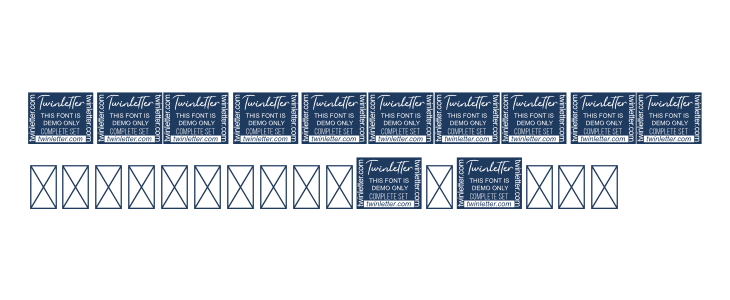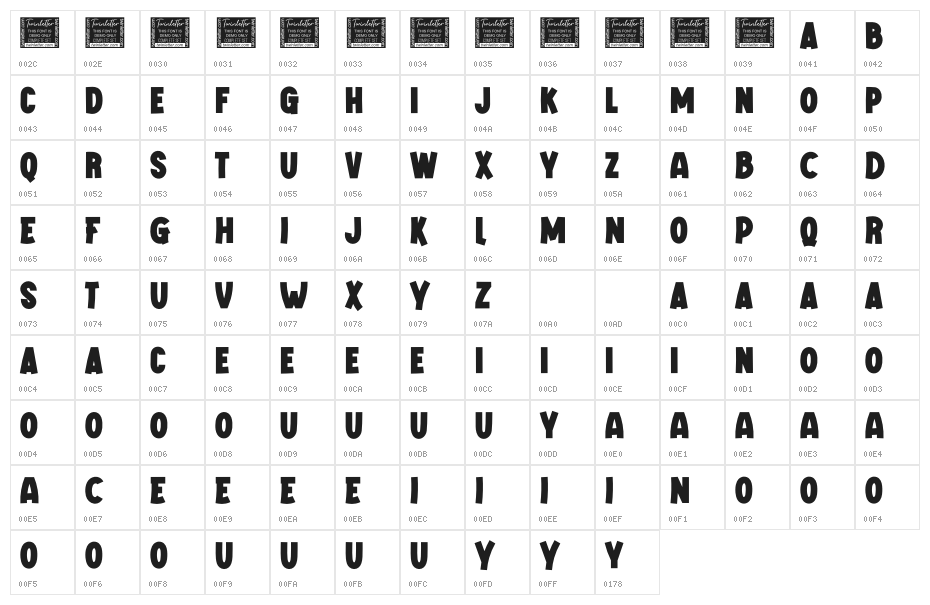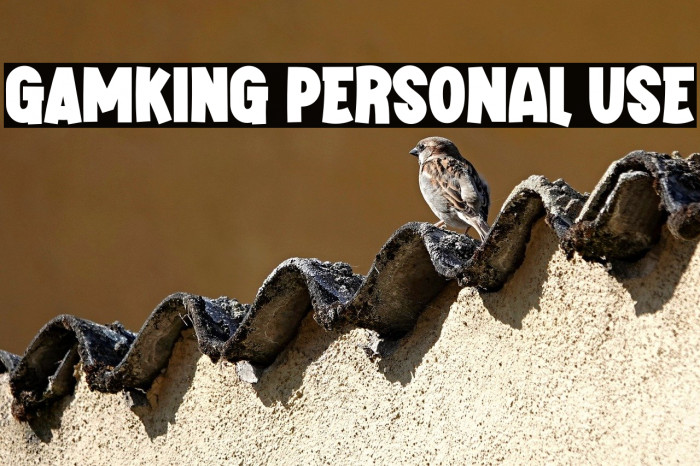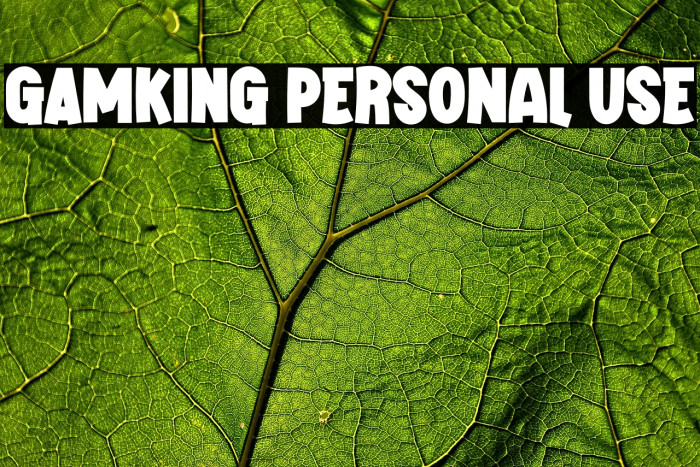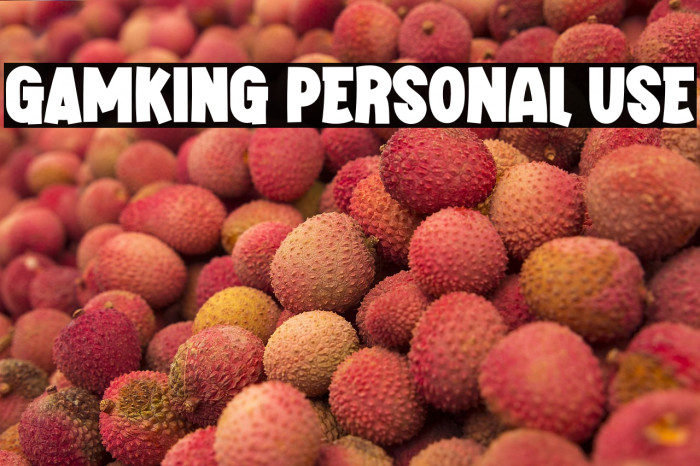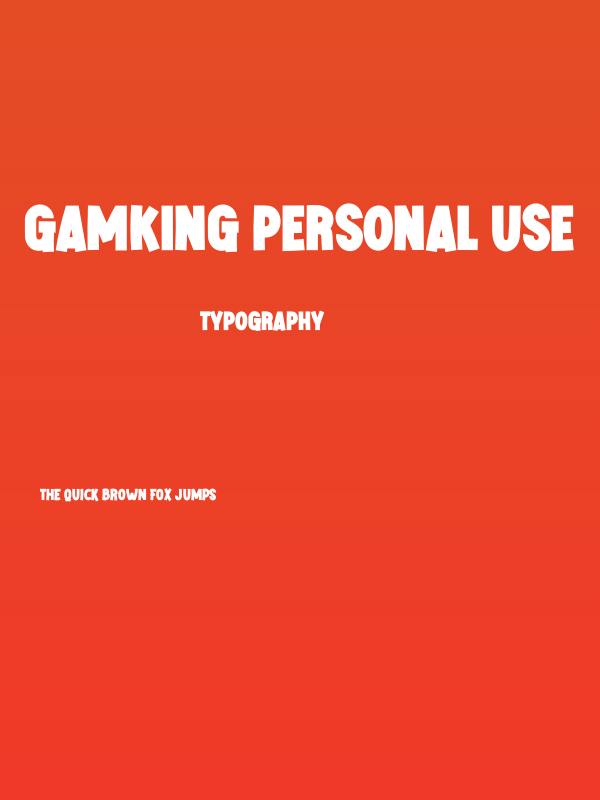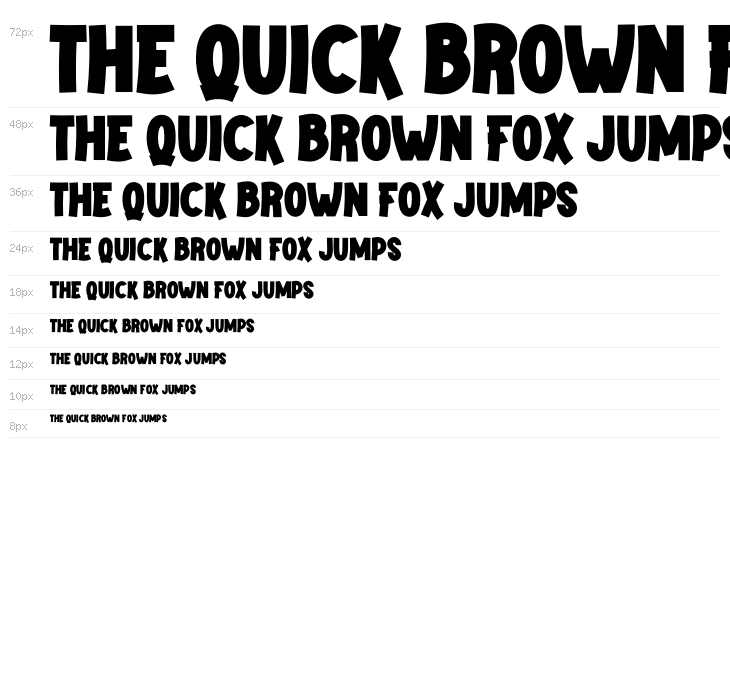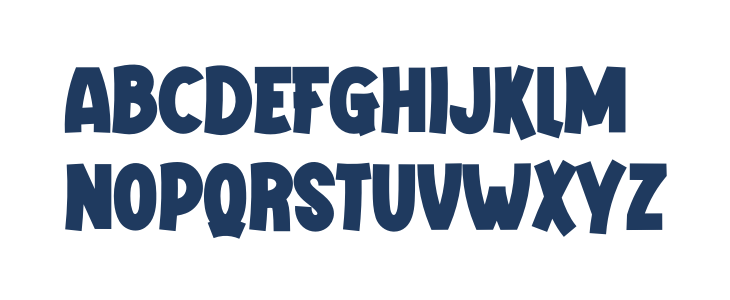
GAMKING Personal Use Font
GAMKING Personal Use Description
This bold and playful font features thick, blocky letters with a slightly irregular shape, giving it a dynamic and energetic feel. The uppercase letters are prominent and commanding, making them ideal for attention-grabbing headlines. The font's quirky style is accentuated by its uneven edges, adding a touch of whimsy and character. It lacks lowercase letters and numerals, focusing solely on uppercase characters, which enhances its suitability for impactful designs. The overall appearance is both modern and retro, making it versatile for various creative projects.
| Overall Style | Modern, Retro |
| Proposed Projects | Ideal for posters, logos, branding, and any project requiring a bold, eye-catching typeface. |